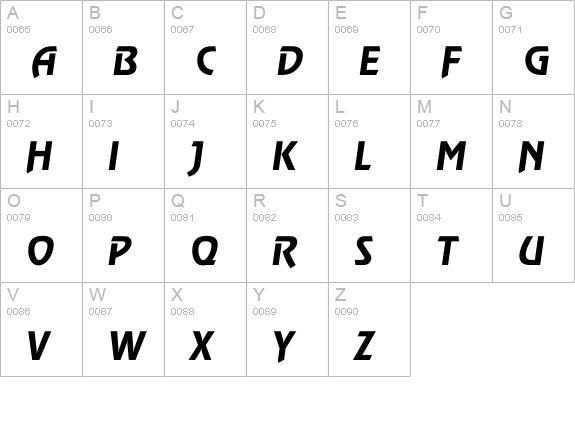
Iragtime DemiBold is a sub-bold, structured variant in the Iragtime typeface family \xE2\x80\x94 well suited to sub-headlines and emphasised passages.
Introducing Iragtime DemiBold, a captivating and versatile font that effortlessly combines classic elegance with a modern twist. This typeface exudes an air of confidence and sophistication, making it the perfect choice for projects that require a touch of class. The bold and robust strokes of Iragtime DemiBold command attention, while its unique serifs add a hint of playfulness. This font strikes the perfect balance between professionalism and creativity, making it suitable for a wide range of design applications. Whether you are working on branding materials, editorial designs, or even personal projects, Iragtime DemiBold will effortlessly elevate your work to new heights. Its versatility allows it to seamlessly adapt to different contexts, whether it's conveying a sense of authority in headings or adding a touch of elegance to body text. But what truly sets Iragtime DemiBold apart is its accessibility. This font is freely available to download at FontsMarket.com, allowing designers and creatives to enjoy its remarkable features without any limitations. By making Iragtime DemiBold accessible to all, its creators have truly democratized the world of typography. So, whether you are a seasoned designer looking for a fresh addition to your font library or a newcomer eager to experiment with typography, Iragtime DemiBold is the font for you. Its timeless appeal and unrestricted availability make it a must-have for anyone seeking to make a bold statement with their designs. Download Iragtime DemiBold today at FontsMarket.com and unlock the limitless potential of this captivating typeface.